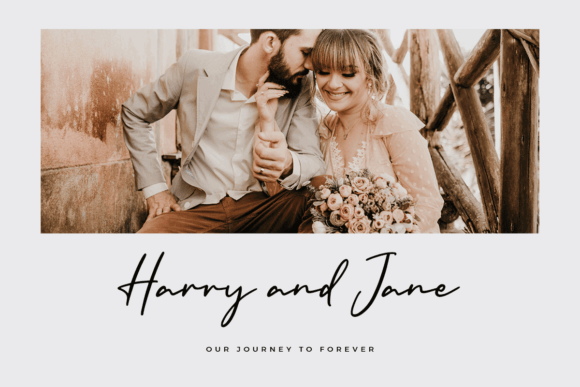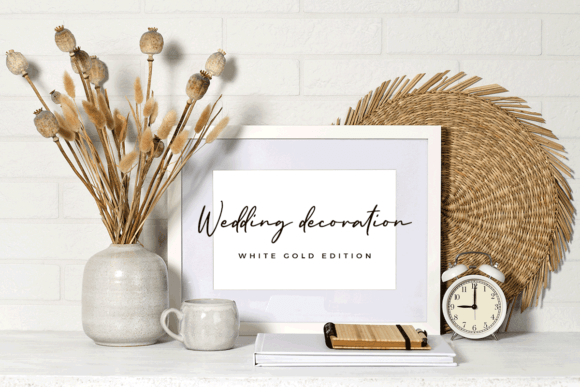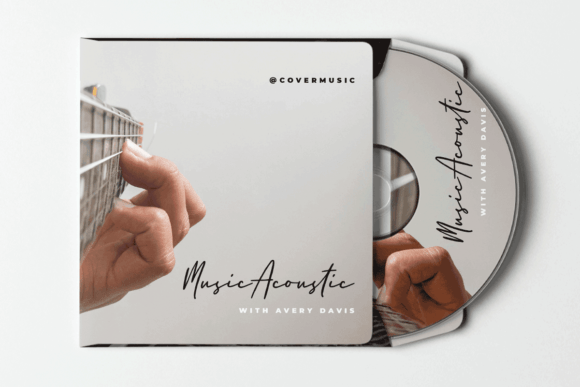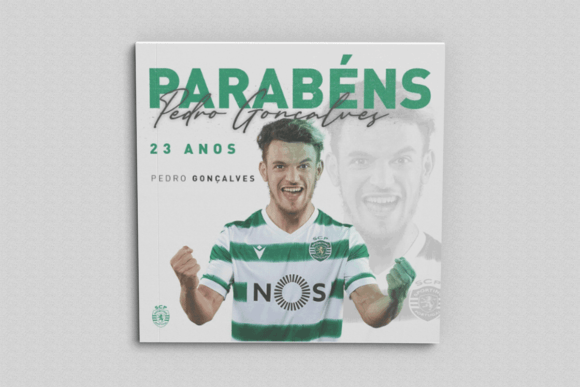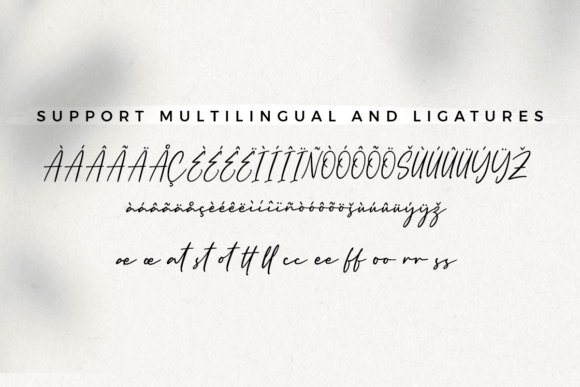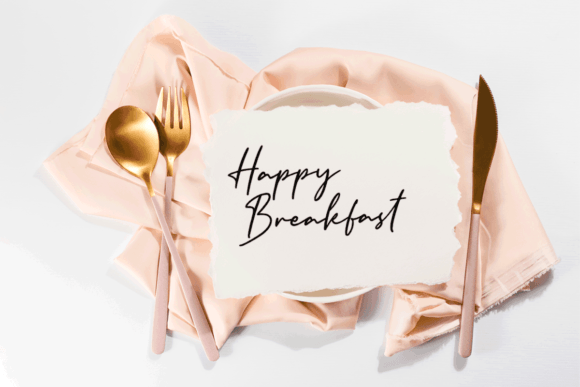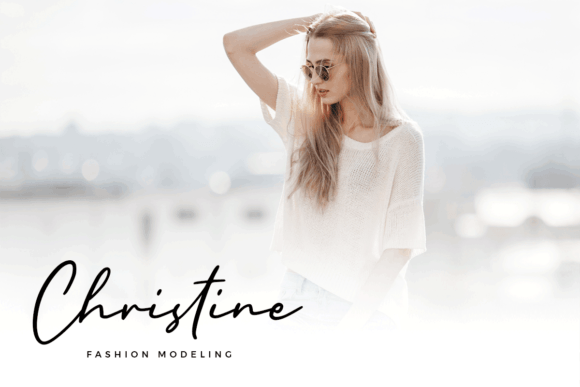
England Signature Font
About England Signature Font
“England Signature” is a distinct and graceful script font that adds a touch of elegance to various design ideas. This gentle signature typeface is crafted with finesse, creating a signature-style font that exudes sophistication and style. Its distinct and graceful nature makes it a versatile choice for a range of design applications, allowing it to shine on various creative projects.
The ravishing style of “England Signature” sets it apart, capturing attention with its refined and graceful curves. Whether used in branding, invitations, posters, or any other design endeavor, this font becomes a key element that enhances the overall aesthetic with its distinctive and charming signature script.
Imagine the impact of “England Signature” on your designs—it’s not just a font; it becomes a statement of elegance. Whether you’re creating branding materials that demand a signature touch or designing invitations for special events, this font adapts seamlessly to your creative vision, infusing each project with a touch of grace.
Incorporate “England Signature” into your design toolkit and experience how it transforms your projects. Let its distinct and graceful script be the key element that elevates your designs, making them stand out with a signature style that radiates sophistication and charm. Whether you’re crafting elegant designs for print or digital platforms, this font becomes a valuable asset for creating visually stunning and memorable compositions.